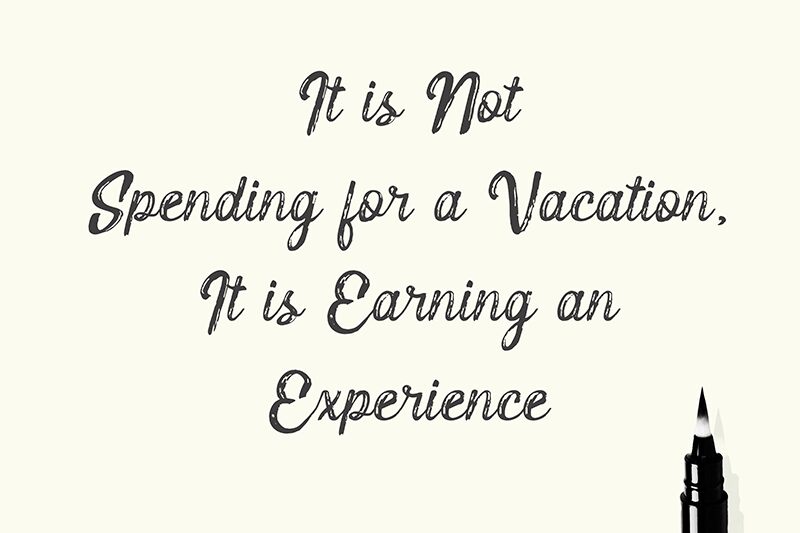
Lost City font by Tigadestd captures the raw, dynamic essence of a brush style, perfectly blending elegance and spontaneity. This free font radiates a vibrant energy with its bold strokes and artistic flair, making it an ideal choice for designs that demand attention and creativity.
The Lost City font is perfect for crafting eye-catching posters, stylish branding materials, or dynamic headers. Its brush-like appearance adds a personal touch to any project, infusing text with movement and character.
Lost City
Natural Handwritten Brush Font